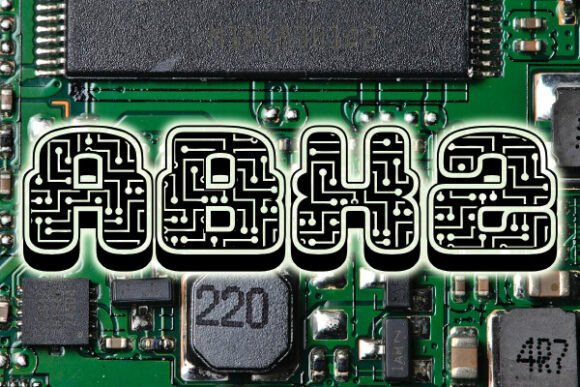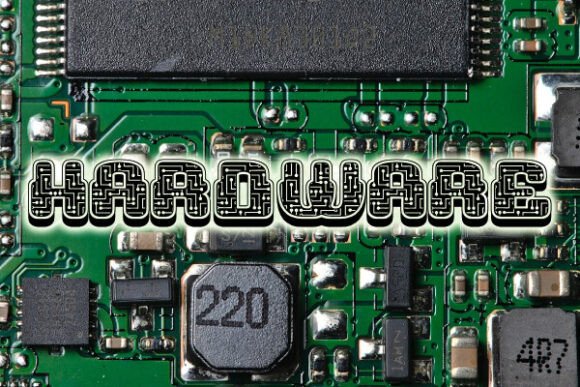
Introduction to Simple Repairs Font
Simple Repairs is awesome decorative font family that will look awesome on any of Your designs.
Use this font on posters, flyers and t-shirts .
Key Features of Simple Repairs Font
Why Choose Simple Repairs Font?
Simple Repairs Font offers exceptional quality and versatility, making it a valuable addition to your design toolkit. Whether you’re creating for personal projects or commercial use, Simple Repairs Font delivers professional results.